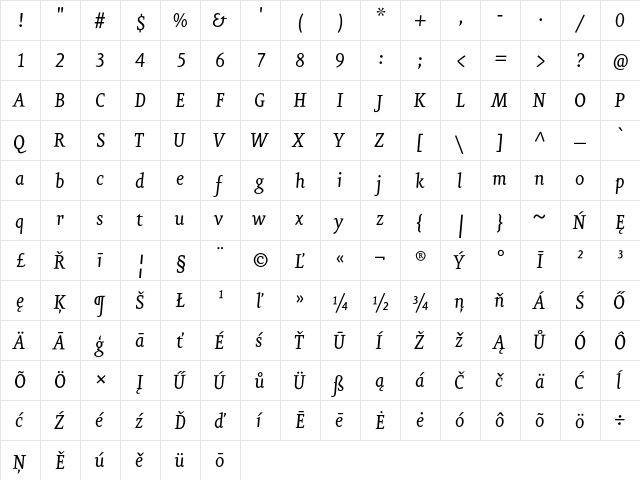
EurekaCE Italic Font Preview
EurekaCE Italic
EurekaCE Italic Font Details
Design Context for EurekaCE Typeface
EurekaCE offers clean, dependable letterforms without strong stylistic allegiance, making it a practical choice for designers who need flexibility. Its italic angle brings a sense of urgency and motion to the letterforms.
Pro Tip: Use EurekaCE for emphasis, pull quotes, and subheadings where its slanted energy can add rhythm to the layout.